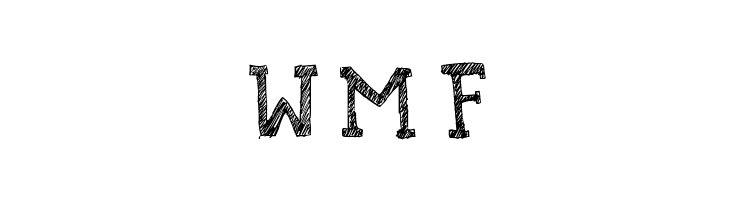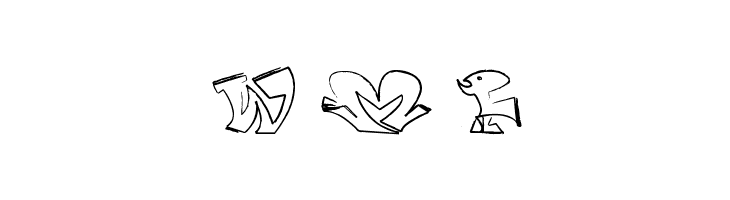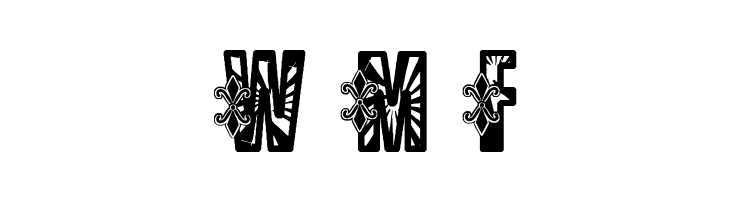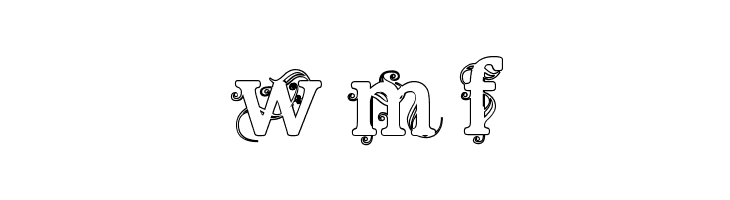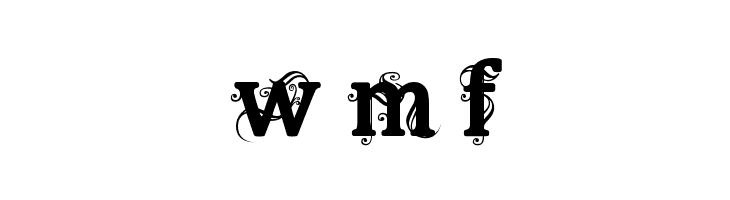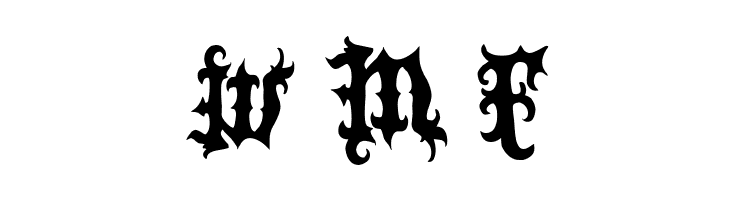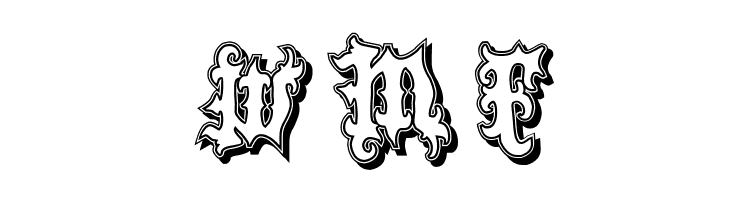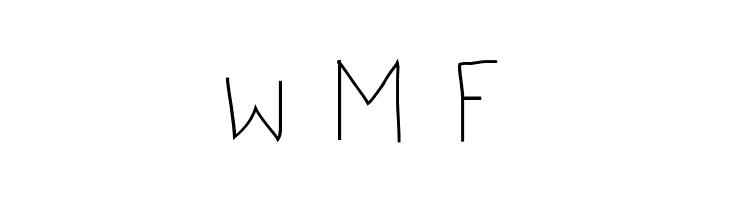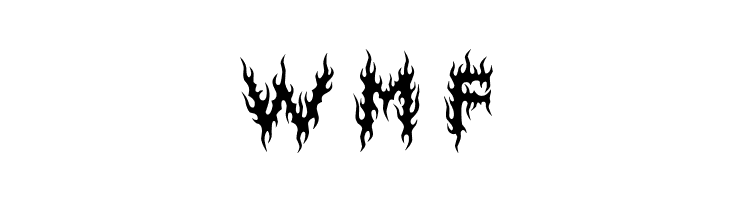
A playful, hand-drawn font with a textured, artistic style.
A bold, decorative font with intricate patterns and thick strokes.
An ornate, decorative font with intricate hollow designs and vintage flair.
An ornate and decorative font with intricate swirls and embellishments.
A bold, edgy font with sharp, jagged edges and a distressed, rebellious style.
An ornate and bold decorative font with intricate flourishes.
An ornate, tattoo-inspired font with elaborate flourishes and shadow effects.